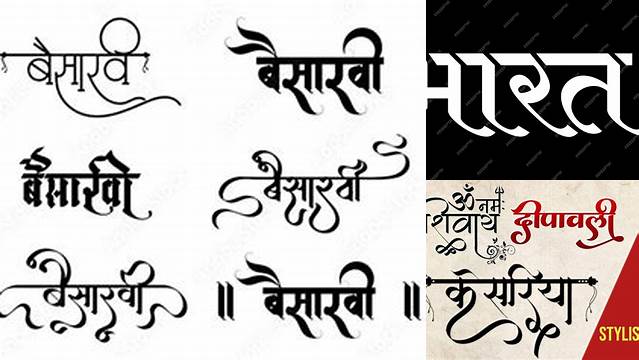
Hindi Fonts Copy & Paste Guide: Simple Steps
Hey guys! Are you looking to jazz up your Hindi text with some cool fonts for copy-pasting? You've landed in the right spot! We're diving deep into the world of Hindi fonts, exploring how to use them, and making sure you can easily copy and paste them wherever you need – whether it's your social media, documents, or any other platform. Let's get started and add some flair to your Hindi communication!
Understanding Hindi Fonts and Their Importance
Hindi fonts are more than just a visual upgrade; they're essential for conveying the richness and beauty of the Hindi language. They help you communicate effectively, making your message stand out and resonate with your audience. Think about it: the right font can completely change the mood and impact of your message. It can go from being super formal to incredibly casual, and everything in between. Choosing the right font is like choosing the right outfit – it depends on where you're going and what you want to say.
When you're dealing with digital content, the right Hindi font ensures your text is displayed correctly across all devices. This is especially crucial in today’s interconnected world. Copying and pasting different fonts ensures your audience, whether they're using a phone, tablet, or computer, sees the text as you intended. Compatibility issues can quickly become a headache. Imagine crafting the perfect message only to have it display as gibberish because of font incompatibility. No thanks!
There are many different Hindi fonts available online, and they come in all sorts of styles. Some fonts are designed to look elegant and traditional, while others are more modern and playful. The choice of font largely depends on the context in which you're using it. For instance, formal documents often use a more traditional font, while social media posts might use a bolder or more stylish font to grab attention.
Besides the visual appeal and compatibility, font choice can also affect readability. Some fonts are easier on the eyes than others, particularly for extended reading. Ensuring readability is paramount, especially for longer pieces of writing like articles, stories, or even lengthy social media updates. It’s all about making it easy for your audience to understand and enjoy your content. Choosing a font that is both visually appealing and easy to read will greatly enhance the impact of your message. When selecting a font, consider the background color, the size of the text, and the device your audience is likely to use. Make sure your choice is clear and accessible to everyone.
Finally, using different fonts also helps maintain a consistent brand identity. If you're a business, the fonts you use become a part of your brand’s personality. They communicate your style, values, and the overall tone of your communication. Consistent use of fonts across all your marketing materials, from your website to your social media, strengthens your brand identity. It makes your content instantly recognizable. So, next time you're creating content in Hindi, don’t underestimate the power of the right font. It’s more than just aesthetics; it’s about communication, clarity, and consistency.
Step-by-Step Guide to Copying and Pasting Hindi Fonts
Alright, let's get into the nitty-gritty of how to copy and paste Hindi fonts like a pro! This process is pretty straightforward, and it's the same whether you're using a Windows PC, a Mac, or a smartphone. Here's a simple step-by-step guide to help you out:
Step 1: Find a Hindi Font Source
Step 2: Select Your Font
Once you're on a font website, browse through the Hindi font options. You'll see fonts in various styles, from traditional to modern. Click on a font that you like. Look for a font preview to see how it looks with Hindi characters. Most font sites will let you type in your text and preview it in the chosen font. Once you've found a font you love, move on to the next step.
Step 3: Copy the Text
This step can vary slightly depending on the website. Generally, you'll see the Hindi text displayed in the selected font. You can highlight the text you want to copy. Use your mouse to click and drag over the text to select it, just like you would with any other text. After the text is highlighted, right-click on the selected text and choose “Copy” from the menu. Alternatively, you can use the keyboard shortcuts: Ctrl + C (Windows) or Cmd + C (Mac).
Step 4: Paste the Text
Now it's time to paste your copied text where you need it. Open the application or platform where you want to use the font (e.g., Word document, social media post, etc.). Click in the text box or document where you want the text to appear. Right-click in the text box and choose “Paste” from the menu. You can also use the keyboard shortcuts: Ctrl + V (Windows) or Cmd + V (Mac).
Issue 3: Formatting Changes
- Problem: The formatting (e.g., size, bold, italics) changes after pasting.
- Solution:
- Format Settings: Check the format settings in the destination application. Sometimes the application's default settings override the copied formatting.
- Re-Format: If the formatting changes, you may need to re-apply the formatting in the destination application. Select the pasted text and adjust the font size, style, etc.
- Copy as Plain Text: Some applications offer a